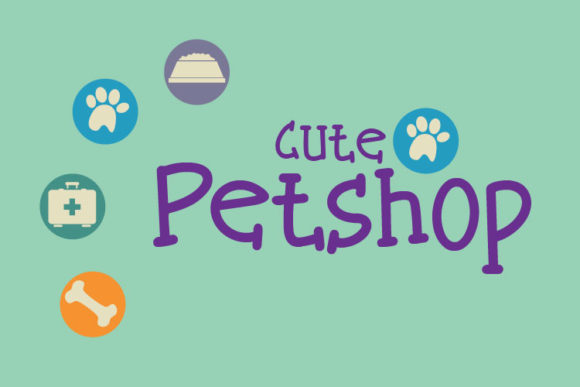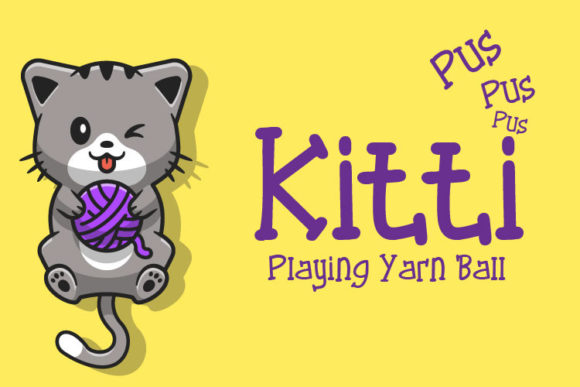
Introduction to Little Pet Font
Little Pet is an adorable serif font, perfectly suitable for creative projects related to animals.
Use it for pet shop branding, animal stores, animal care, veterinary offices, and other projects alike .
Key Features of Little Pet Font